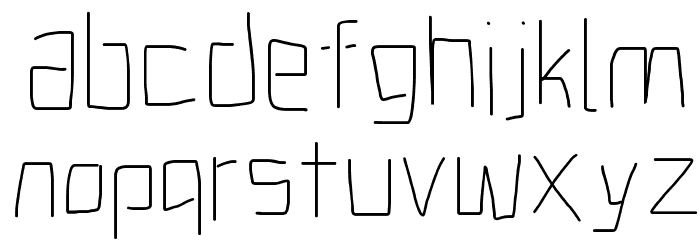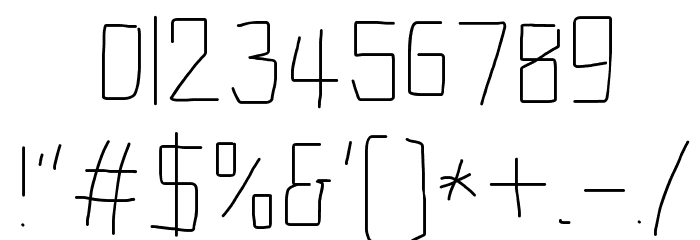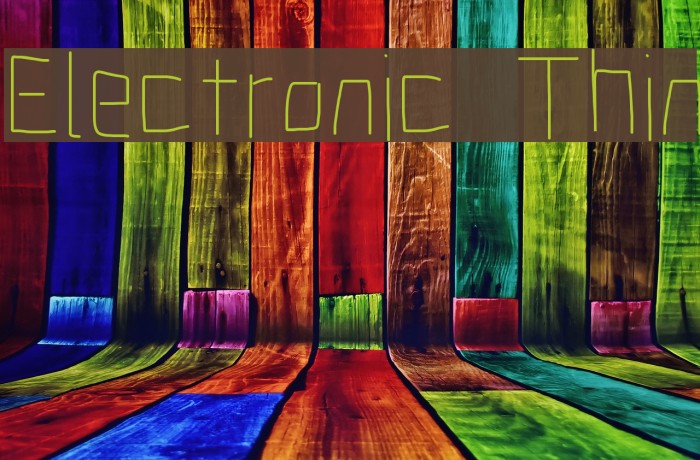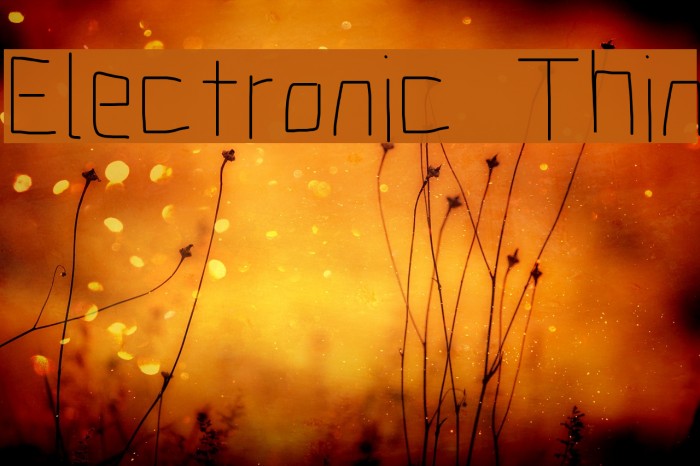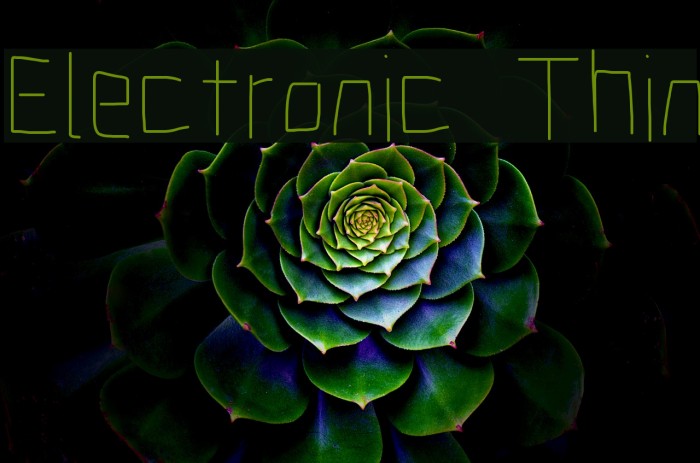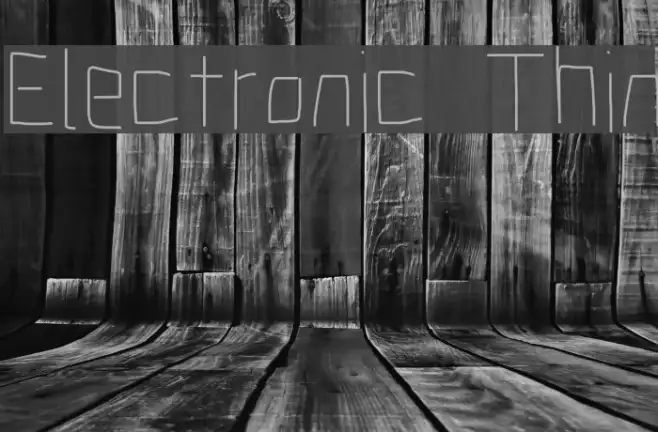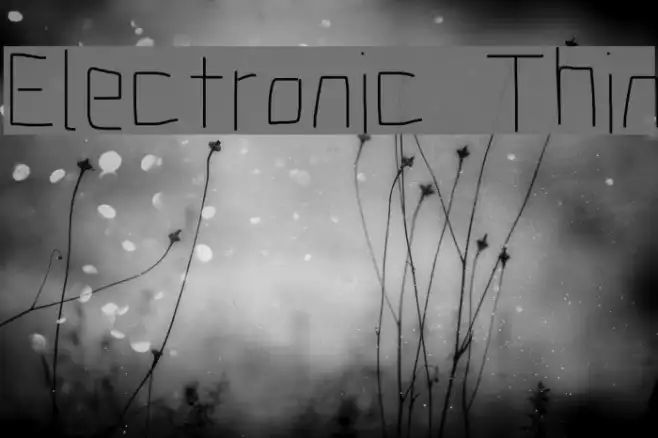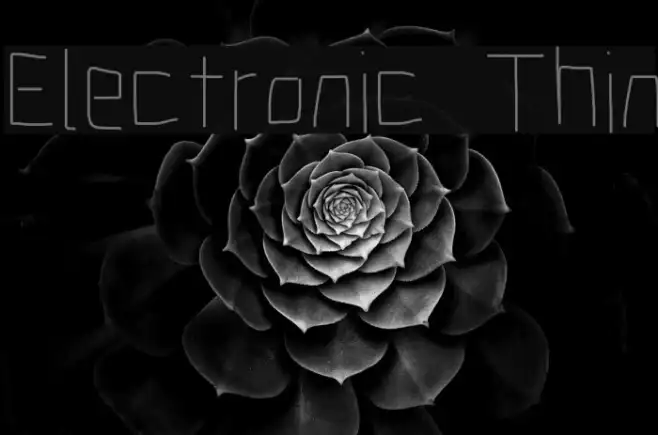
Electronic Thin Font
This font features a minimalist and geometric design, characterized by thin, straight lines and angular shapes. The uppercase and lowercase letters maintain a consistent height, creating a uniform appearance. The numerals and special characters follow the same linear and angular style, enhancing the font's cohesive look. Its simplicity and clarity make it suitable for modern and tech-oriented designs. The font's thin strokes give it a delicate and airy feel, while the geometric structure provides a sense of precision and order.
A thin, geometric font with a minimalist and modern design.
- Proposed Projects: Ideal for tech branding, digital interfaces, modern posters, and minimalist graphic design projects.
- Use Case: Headlines, Logos, Digital interfaces